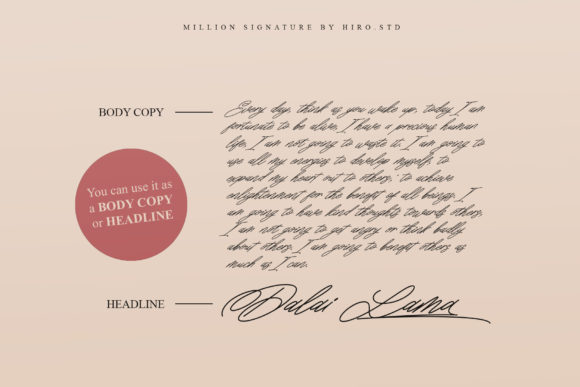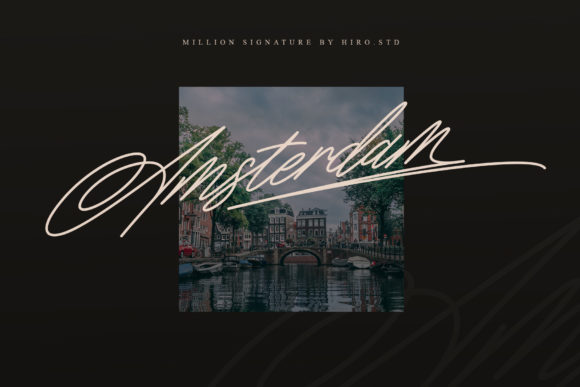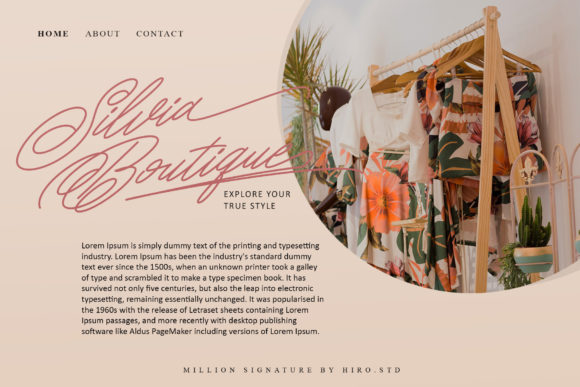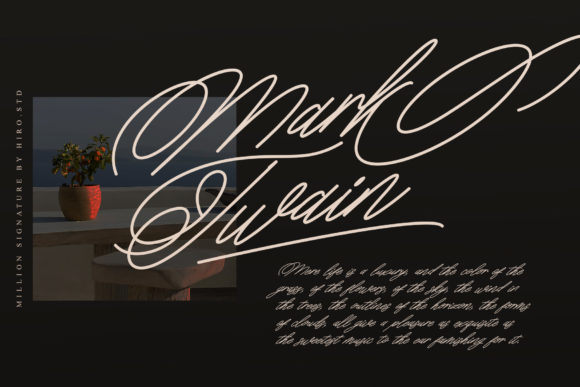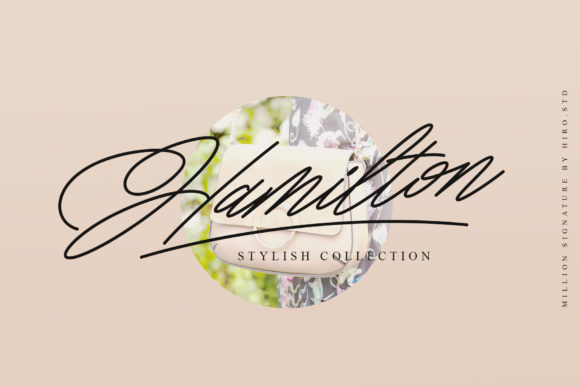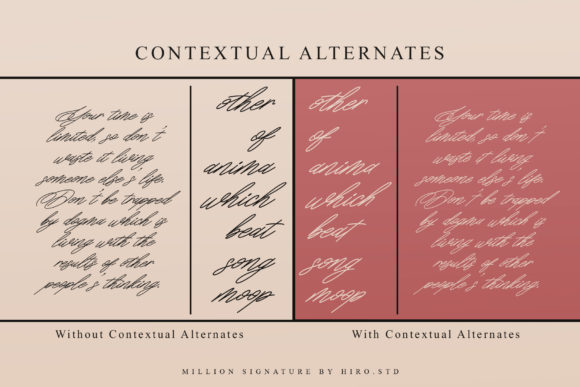
Introduction to Million Signature Font
Do you remember that moment when a single design element sparks an entire creative project? For many designers, it’s the perfect font that sets the tone for an entire visual identity. And, we’re excited to introduce you to the Million Signature Font, a delicate and elegant handwritten font that’s about to become your new go-to design resource.
With its distinct and well-balanced letters, this font is a work of art that’s sure to elevate your creative project. Whether you’re working on a branding project, a website, or a social media campaign, the Million Signature Font is a valuable addition to your design toolkit. And, the best part? It’s available for free download, so you can start experimenting with it right away.
So, what makes the Million Signature Font so special? Let’s dive in and explore its features, and discover why it’s a must-have for designers looking for a high-quality, unique design element.
Key Features of Million Signature Font
- Unique and Creative Design: The Million Signature Font is designed to provide a distinctive and eye-catching look for your creative projects.
- Transparent Background: This font features a transparent background, making it ideal for use on transparent or colored backgrounds, adding an extra layer of creativity to your design.
- Perfect for Creative Projects: The Million Signature Font is designed to add a touch of elegance and sophistication to your creative projects, from posters and flyers to business cards and branding materials.
Honest Review: Million Signature Font
I recently had the chance to work with the Million Signature Font, and I must say it’s a great addition to any designer’s arsenal. With its free download option, it’s an excellent resource for creatives who want to spice up their projects without breaking the bank.
One of the standout features of the Million Signature Font is its high-quality design. The transparent background allows for seamless integration into any creative project, making it a versatile design resource. The font itself is well-designed, with a unique aesthetic that sets it apart from more generic fonts.
- High-quality design with a unique aesthetic
- Perfect for creative projects that need a touch of sophistication
- Some users may find the font too elaborate for simple designs
Overall, I’m impressed with the Million Signature Font. It’s a great resource for designers who want to add some personality to their projects. While it may have some limitations, the benefits far outweigh the drawbacks. I’d definitely recommend it to anyone looking for a high-quality, unique font.